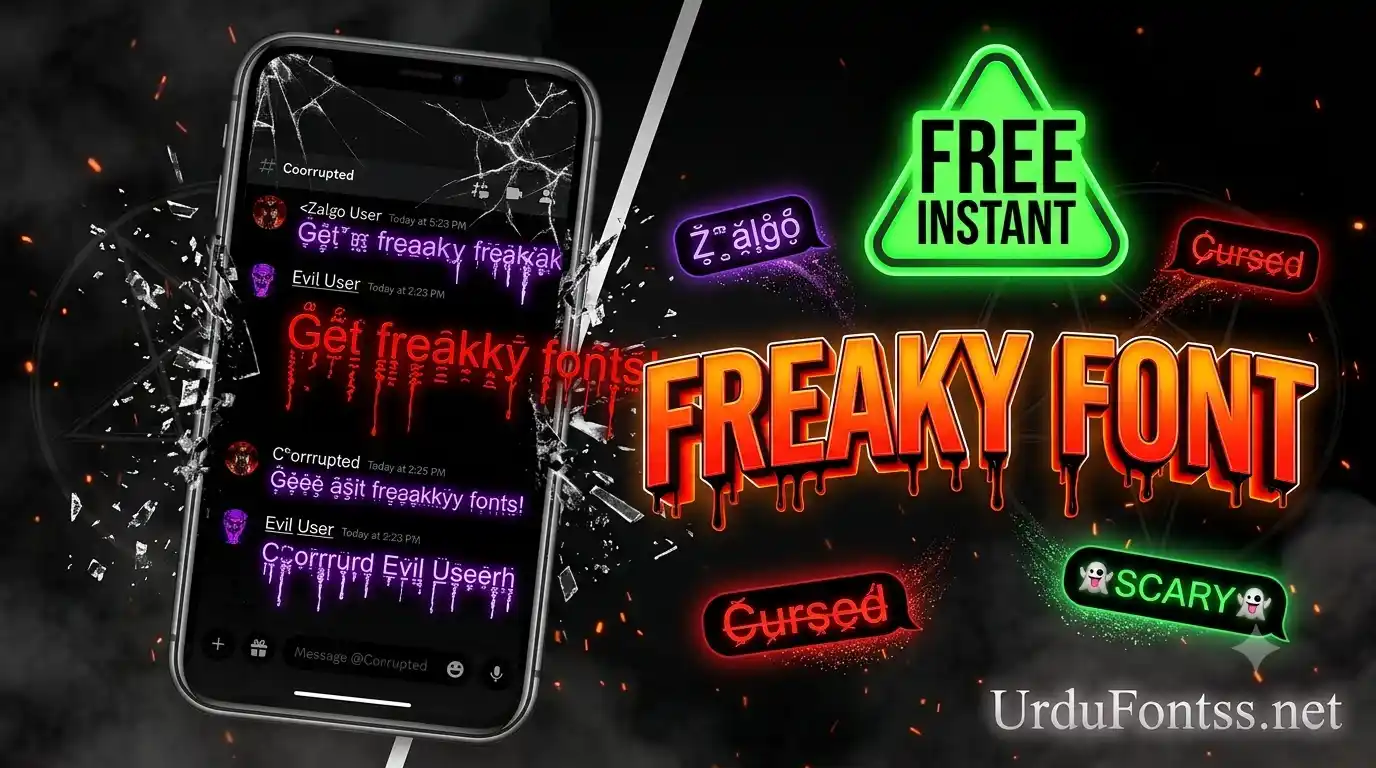
👻 Freaky Font Generator — Scary, Creepy & Cursed Text
Want to freak out your friends? Generate freaky font styles instantly — zalgo, cursed, creepy, glitch, and scary text. Type your text below, click any style to copy, then paste into Discord, Instagram, TikTok, or anywhere. 🎃 30+ Freaky Styles
What is a Freaky Font? A freaky font uses special Unicode characters — zalgo marks, cursed diacritics, creepy symbols, and glitchy overlays — to transform normal text into scary, horror-style text. These work everywhere: Discord, Instagram, TikTok, Twitter, and YouTube. Perfect for Halloween posts, horror stories, scary bios, and freaking out your friends!
The Freaky Font Generator turns your normal text into scary, creepy and cursed styles — zalgo text with glitchy marks, distorted cursed letters, upside-down writing and more. Type in the tool above, pick a style, and copy-paste the result into your bio, username, messages or prank posts. It runs in the browser, free, with no signup.
Quick Answer — What Is a Freaky Font?
A “freaky font” is not a real font file — it is normal text decorated with Unicode combining characters (zalgo marks, diacritics and symbol swaps) that make letters look corrupted, haunted or glitchy. Because the output is plain Unicode text, it works anywhere text works: bios, comments, chat apps and documents. People search for freaky fonts for Halloween posts, horror-themed usernames, pranks, and standing out in crowded comment sections.
How to Use the Freaky Font Generator — Step by Step
What Types of Freaky Fonts Are Available?
• Zalgo text: letters stacked with glitchy combining marks — the classic “corrupted” look.
• Cursed text: distorted letters with heavy diacritics for a haunted feel.
• Creepy marks: subtle marks added around normal letters for a spooky-but-readable result.
• Upside-down & reversed: text flipped for pranks and attention-grabbing comments.
• Glitch text: broken, pixelated-looking letter combinations for a digital-horror vibe.
Where Can You Use Freaky Fonts?
• Social bios and usernames: Instagram, TikTok and X bios accept the Unicode output directly.
• Comments and captions: stand out in busy threads with one creepy line.
• Halloween and horror posts: the obvious seasonal use — posters, invitations and stories.
• Pranks on friends: paste a cursed-looking message in chat and watch the reaction.
Why Do Some Freaky Fonts Not Display Correctly?
Freaky text relies on Unicode combining characters, and not every app renders them the same way. Zalgo text with heavy marks can get cut off in apps that limit line height (some chat apps clip the top marks), and very old devices may show boxes for rare symbols. If a style breaks somewhere, try a lighter one — cursed and creepy-marks styles are the most compatible across apps.
Pro Tips for Using Freaky Fonts
• Less is more: one freaky line beats a whole paragraph — heavy zalgo text is hard to read.
• Test before posting: paste the style into the target app first; if marks clip, pick a lighter style.
• Keep the readable version: for usernames people must search, pair a freaky display name with a normal handle.
• Mind the context: cursed text in a professional bio will cost you — save it for fun accounts.
Frequently Asked Questions (FAQs)
What is a freaky font?
A freaky font is normal text decorated with Unicode combining characters — zalgo marks, diacritics and symbol swaps — that make it look scary, cursed or glitchy. It is plain text, not a font file, so it pastes anywhere.
How do I use the freaky font generator?
Type your text in the generator above, pick a style, click to copy it, and paste it into your bio, username, comment or message.
Is the freaky font generator free?
Yes — the generator and all styles are free, with no signup.
Why does zalgo text get cut off in some apps?
Can I use freaky fonts for commercial content?